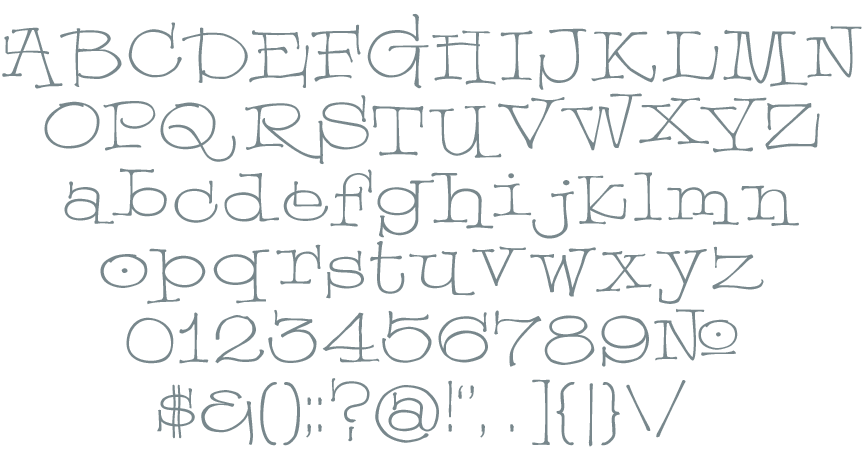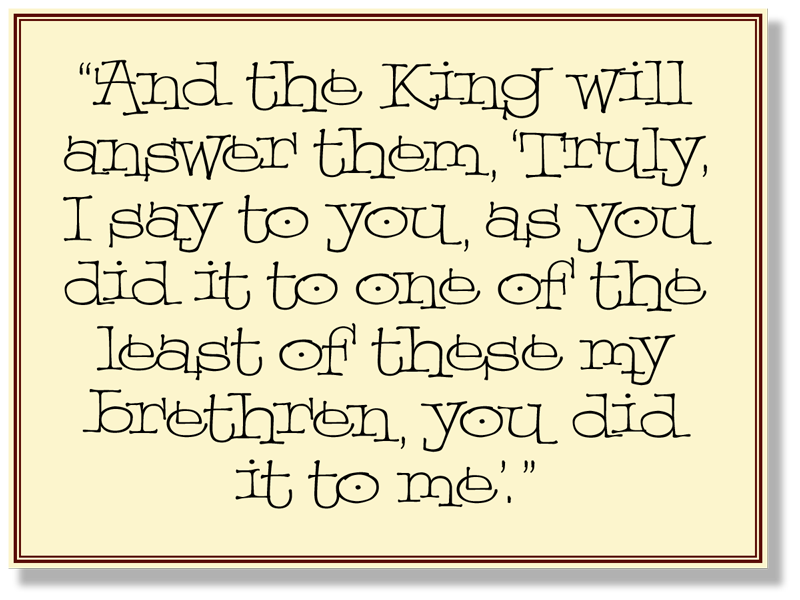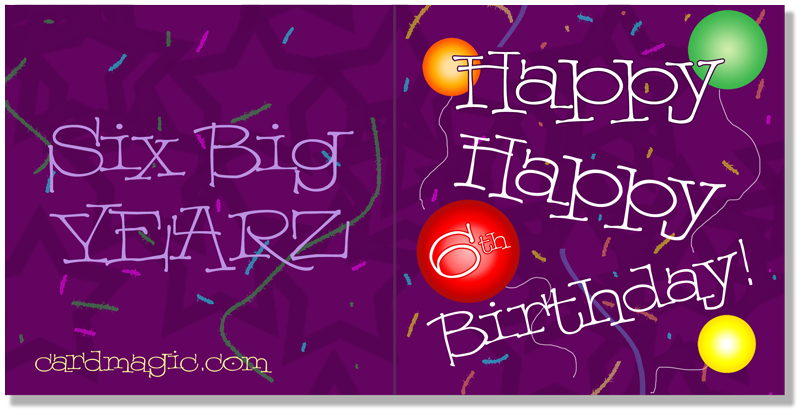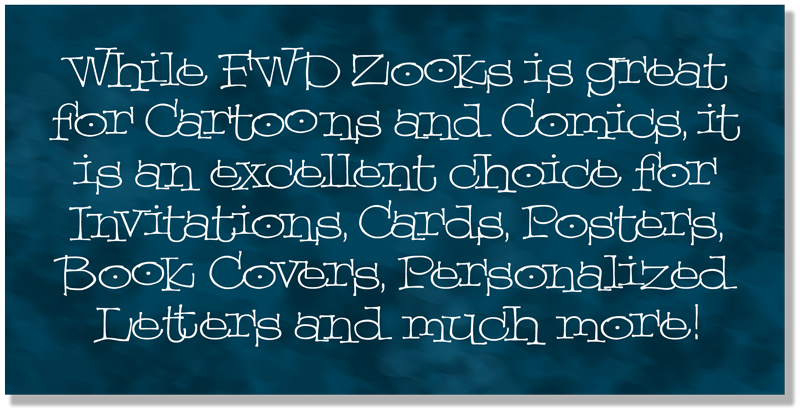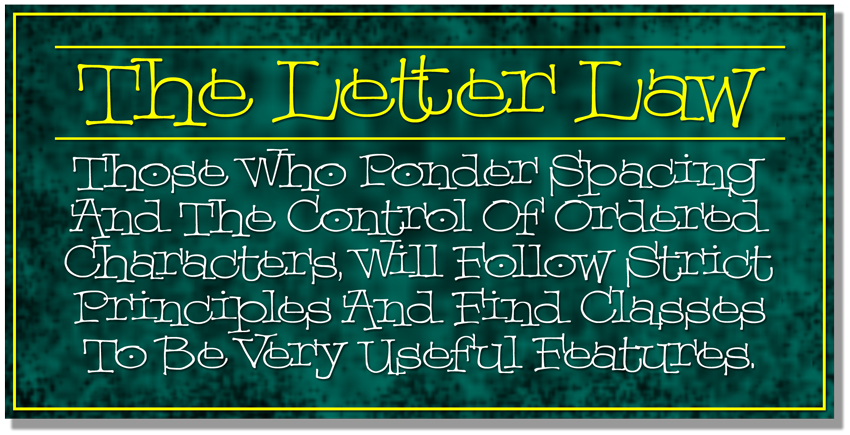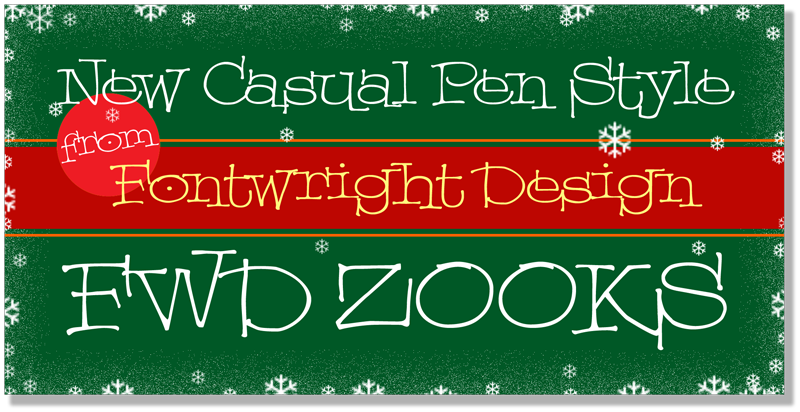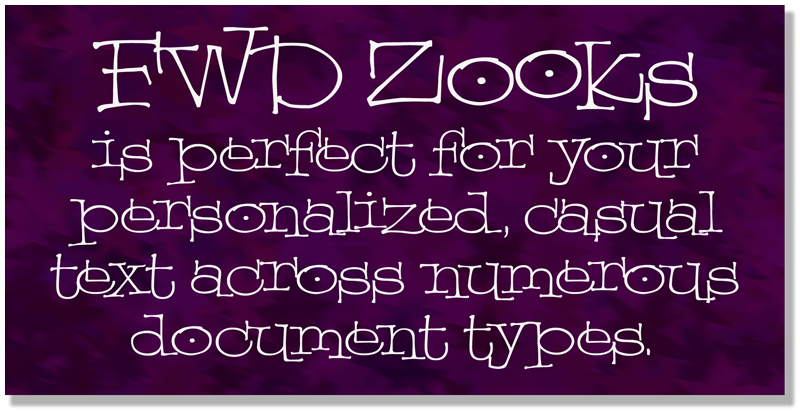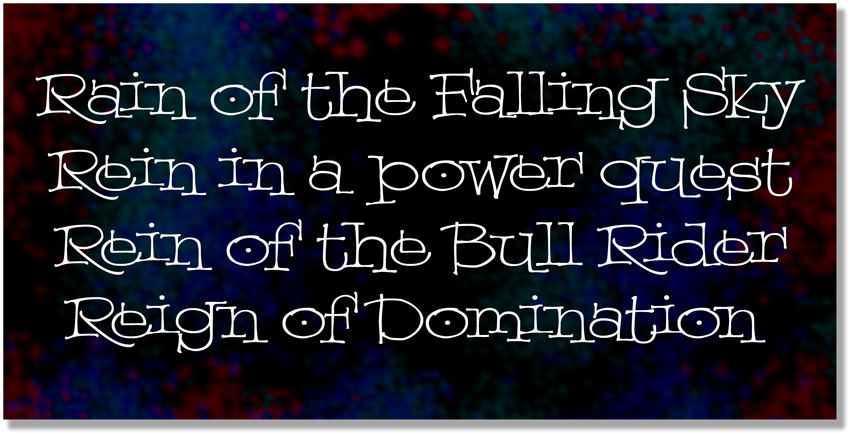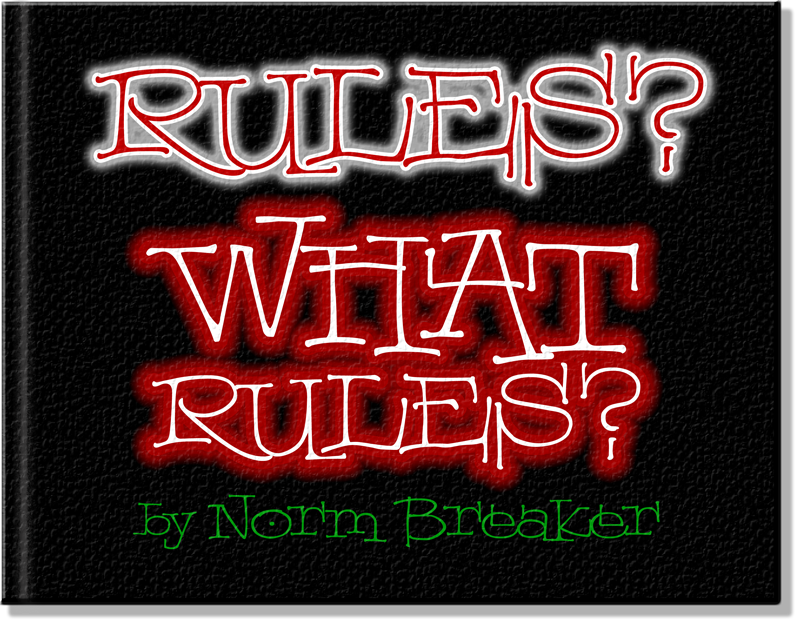
FWD Zooks is a very casual pen style font. It was designed directly from hand lettered
notes with a few uniquely creative features added yielding
a truly individual and
recognizable typeface.
FWD Zooks is perfect for your personalized casual text across numerous document types.
For instance, while FWD Zooks is great for Cartoons and Comics it is an excellent choice
for Invitations, Cards, Posters, Book Covers, Personalized Letters and much, much more!
Zooks Regular